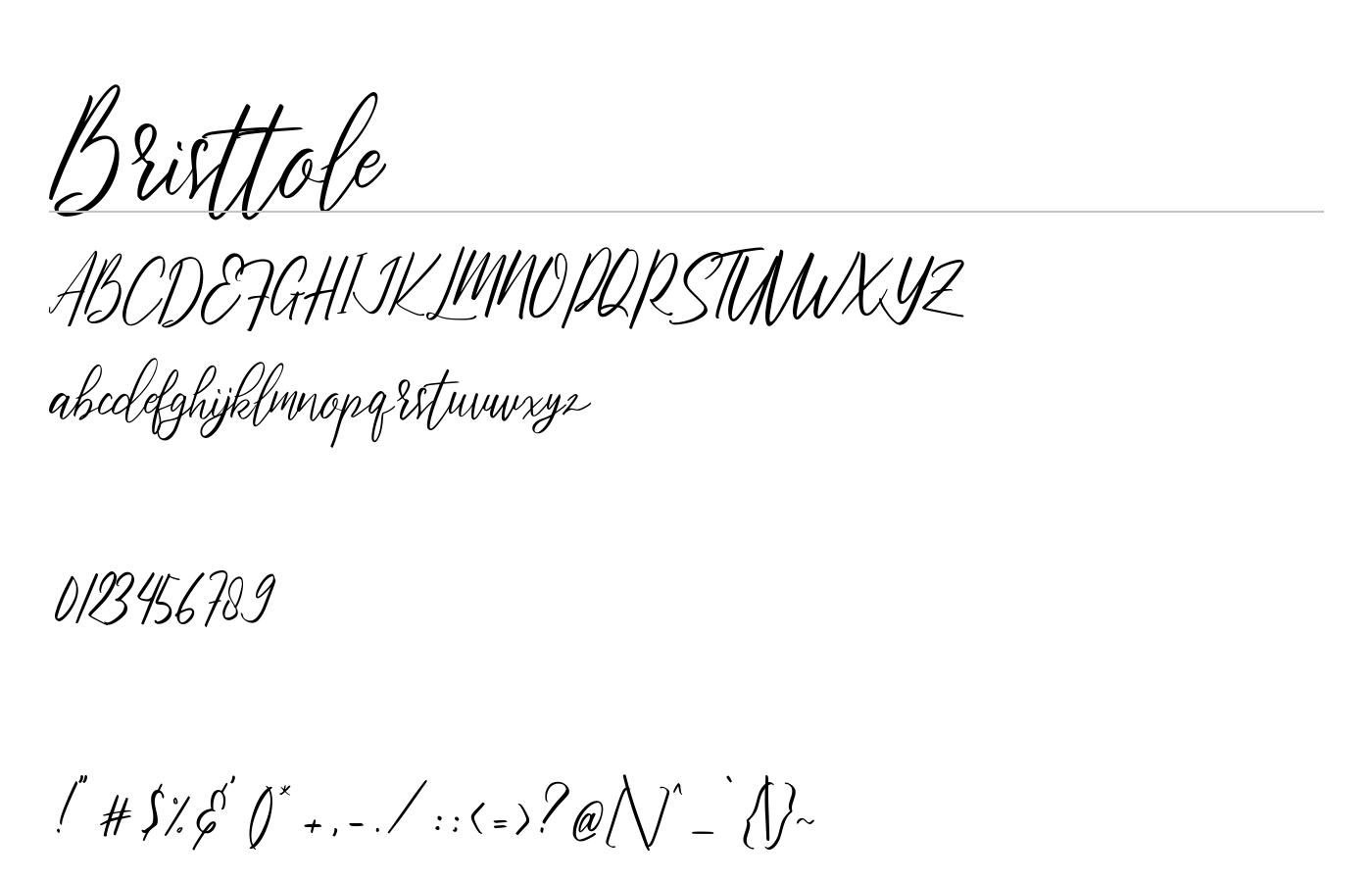
Bristtole is a graceful, handwritten script font characterized by its tall, slender letterforms and elegant, flowing strokes. It features a casual yet sophisticated style with moderate stroke contrast and a natural, slightly slanted rhythm that evokes a personal, artistic touch. Perfect for lifestyle branding, invitations, and creative projects, Bristtole adds a refined, intimate feel wherever a stylish, handwritten look is desired.
Bristtole Font
About Bristtole Font
| Font family | Bristtole Font |
| Designer | Fannan Studio |